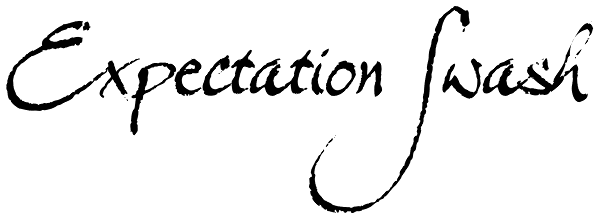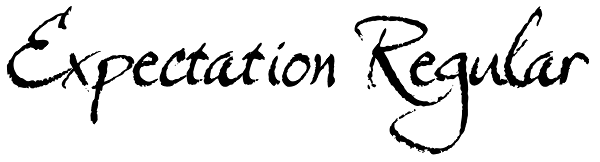
Expectation
Making a Christmas card takes a lot of work! Finding the right typeface can be tough, too. Have you ever spent hours searching for the right one? Well, in 2003, instead of spending hours searching, German designer Guido Bittner made his own...
Expectation Swash
Expectation Regular